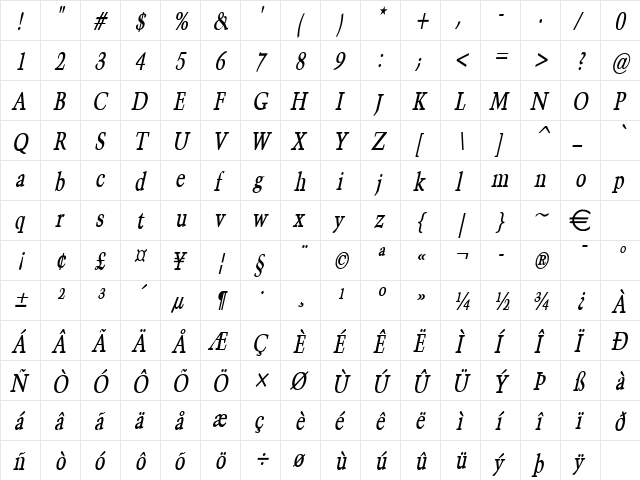
CongoThin BoldItalic
Design Context for CongoThin Typeface
CongoThin is a composed and adaptable typeface that performs quietly and consistently across a wide range of design contexts. The dynamic lean of this cut emphasises speed and emphasis in any layout. The heavy weight commands attention and anchors typographic hierarchies.
Pro Tip: Try CongoThin for annotation and caption copy alongside an upright companion — the contrast in angle creates a dynamic but ordered typographic system.